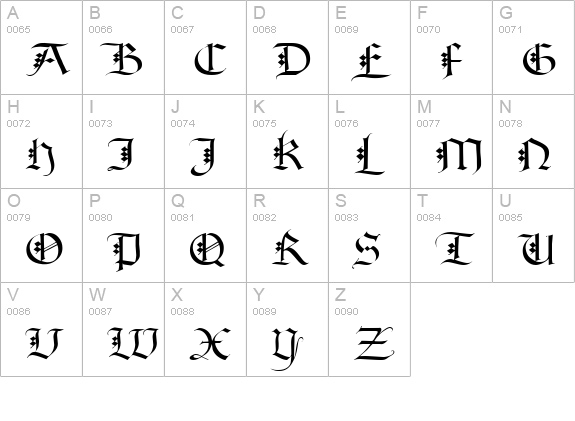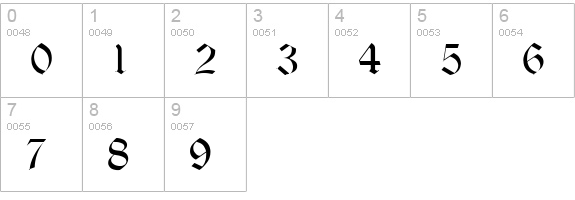
Diamond Gothic Font Details
Diamond Gothic is a captivating and timeless font that exudes an air of elegance and sophistication. Its clean lines and sharp edges give it a modern yet classic appeal, making it the perfect choice for various design projects. With its bold and assertive presence, Diamond Gothic commands attention and effortlessly stands out. This font is a true gem in the world of typography, offering a unique blend of contemporary style and traditional aesthetics. Its meticulously crafted letterforms are expertly designed to create a harmonious balance between legibility and artistic expression. Whether used for headlines, logos, invitations, or any other creative endeavor, Diamond Gothic adds a touch of refinement and professionalism to any design. One of the standout features of Diamond Gothic is its versatility. It adapts seamlessly to different design contexts, from sleek and minimalist layouts to bold and expressive compositions. This versatility allows designers to explore a wide range of creative possibilities and tailor their designs to suit various brand identities and visual aesthetics. But what truly sets Diamond Gothic apart is its availability as a free download. FontsMarket.com offers this magnificent font for free, allowing designers and enthusiasts alike to access its beauty and functionality without any cost. This generous offer enables designers to experiment and explore with Diamond Gothic, unleashing their creativity without any limitations. So, if you are looking for a font that effortlessly combines modernity with timeless appeal, Diamond Gothic is the perfect choice. Its free availability on FontsMarket.com makes it even more enticing, as you can easily download and incorporate this stunning font into your design projects, adding a touch of sophistication and elegance that will leave a lasting impression. Embrace the brilliance of Diamond Gothic and elevate your designs to new heights.